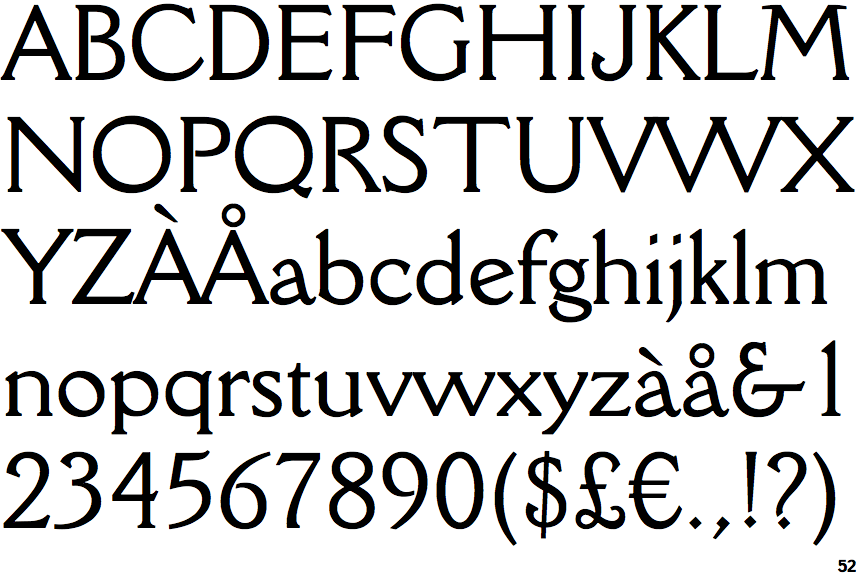
Della Robbia Font
Della Robbia Font - Web della respira is a revival of the 1913 della robbia typeface by american type founders, based on t.m. This typeface has four styles and was published by fontsite inc. Font size della robbia regular from $12.00 della robbia bold. In addition to 1252 latin 1, these fonts support 1250 latin 2, 1254 turkish, and 1257 windows baltic. Web serif della robbia 4 fonts from $19.00 family della robbia is a serif font family. Web della robbia specimen test drive open type features glyph license. Web della robbia font family was designed by thomas maitland cleland and published by bitstream. Cleland’s typeface of the same name. It was designed to be a careful and scholarly creation of a typeface from 15th century. Della robbia contains 2 styles and family package options.
It was designed to be a careful and scholarly creation of a typeface from 15th century. Web serif della robbia 4 fonts from $19.00 family della robbia is a serif font family. Font size della robbia regular from $12.00 della robbia bold. Cleland’s typeface of the same name. Della robbia contains 2 styles and family package options. Web della respira is a revival of the 1913 della robbia typeface by american type founders, based on t.m. This typeface has four styles and was published by fontsite inc. In addition to 1252 latin 1, these fonts support 1250 latin 2, 1254 turkish, and 1257 windows baltic. Web della robbia specimen test drive open type features glyph license. Web della robbia font family was designed by thomas maitland cleland and published by bitstream.
Web della respira is a revival of the 1913 della robbia typeface by american type founders, based on t.m. This typeface has four styles and was published by fontsite inc. Della robbia contains 2 styles and family package options. Web serif della robbia 4 fonts from $19.00 family della robbia is a serif font family. It was designed to be a careful and scholarly creation of a typeface from 15th century. Web della robbia specimen test drive open type features glyph license. In addition to 1252 latin 1, these fonts support 1250 latin 2, 1254 turkish, and 1257 windows baltic. Web della robbia font family was designed by thomas maitland cleland and published by bitstream. Font size della robbia regular from $12.00 della robbia bold. Cleland’s typeface of the same name.
Web della respira is a revival of the 1913 della robbia typeface by american type founders, based on t.m. Web della robbia specimen test drive open type features glyph license. Cleland’s typeface of the same name. In addition to 1252 latin 1, these fonts support 1250 latin 2, 1254 turkish, and 1257 windows baltic. Della robbia contains 2 styles and.
In addition to 1252 latin 1, these fonts support 1250 latin 2, 1254 turkish, and 1257 windows baltic. It was designed to be a careful and scholarly creation of a typeface from 15th century. Cleland’s typeface of the same name. Web della robbia specimen test drive open type features glyph license. Della robbia contains 2 styles and family package options.
Della robbia contains 2 styles and family package options. Web serif della robbia 4 fonts from $19.00 family della robbia is a serif font family. Web della robbia font family was designed by thomas maitland cleland and published by bitstream. It was designed to be a careful and scholarly creation of a typeface from 15th century. In addition to 1252.
Cleland’s typeface of the same name. Font size della robbia regular from $12.00 della robbia bold. Web della robbia specimen test drive open type features glyph license. In addition to 1252 latin 1, these fonts support 1250 latin 2, 1254 turkish, and 1257 windows baltic. Della robbia contains 2 styles and family package options.
Web della respira is a revival of the 1913 della robbia typeface by american type founders, based on t.m. Cleland’s typeface of the same name. In addition to 1252 latin 1, these fonts support 1250 latin 2, 1254 turkish, and 1257 windows baltic. Della robbia contains 2 styles and family package options. It was designed to be a careful and.
Della robbia contains 2 styles and family package options. Font size della robbia regular from $12.00 della robbia bold. Web della respira is a revival of the 1913 della robbia typeface by american type founders, based on t.m. Web serif della robbia 4 fonts from $19.00 family della robbia is a serif font family. This typeface has four styles and.
It was designed to be a careful and scholarly creation of a typeface from 15th century. This typeface has four styles and was published by fontsite inc. Web della respira is a revival of the 1913 della robbia typeface by american type founders, based on t.m. Web della robbia specimen test drive open type features glyph license. Web della robbia.
Web della robbia font family was designed by thomas maitland cleland and published by bitstream. Web della robbia specimen test drive open type features glyph license. Web serif della robbia 4 fonts from $19.00 family della robbia is a serif font family. Web della respira is a revival of the 1913 della robbia typeface by american type founders, based on.
This typeface has four styles and was published by fontsite inc. Font size della robbia regular from $12.00 della robbia bold. Web della robbia specimen test drive open type features glyph license. It was designed to be a careful and scholarly creation of a typeface from 15th century. In addition to 1252 latin 1, these fonts support 1250 latin 2,.
It Was Designed To Be A Careful And Scholarly Creation Of A Typeface From 15Th Century.
Della robbia contains 2 styles and family package options. Web della robbia font family was designed by thomas maitland cleland and published by bitstream. This typeface has four styles and was published by fontsite inc. Font size della robbia regular from $12.00 della robbia bold.